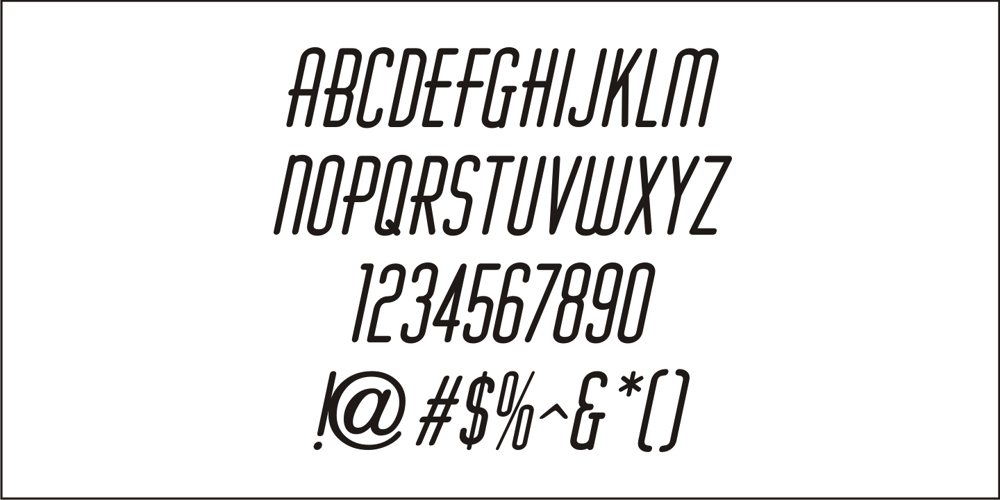
Cover Letter JNL Font Family was designed by Jeff Levine and published by Jeff Levine. Cover Letter JNL contains 2 styles and family package options. The handmade title on the cover for the 1939 edition of “A Wand’ring Minstrel” [from Gilbert and Sullivan’s “The Mikado”] was rendered with a round nib lettering pen in an Art Deco style. This type design is now available as Cover Letter JNL in both regular and oblique versions. However, the font’s name is a bit of a pun, as it has nothing to do with cover letters, but rather the lettering found on the cover of the sheet music.